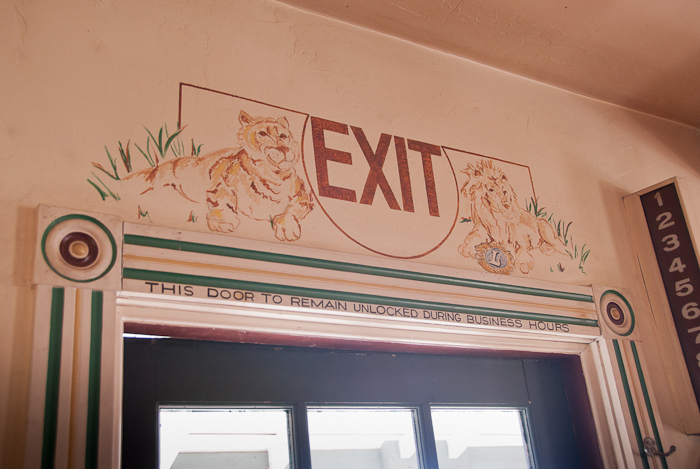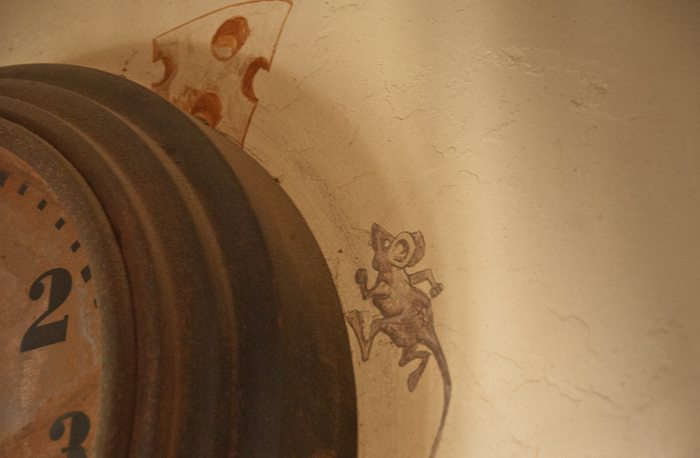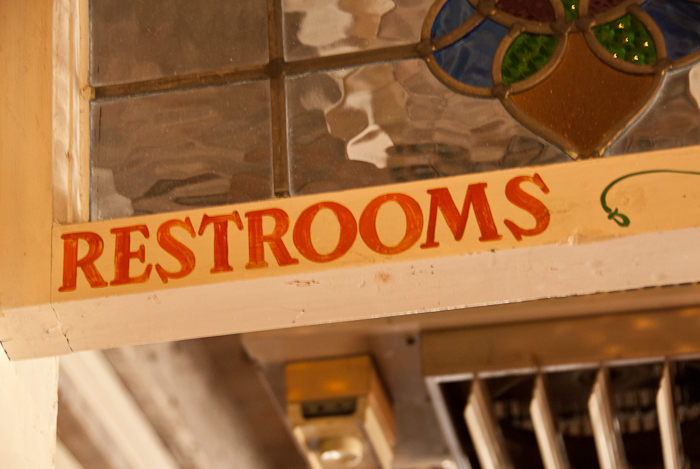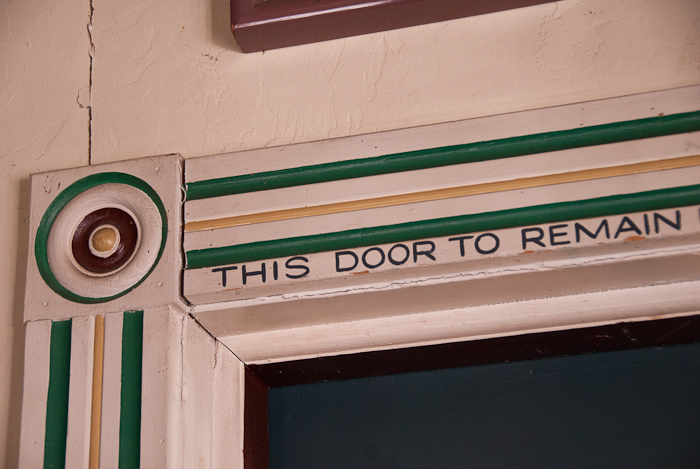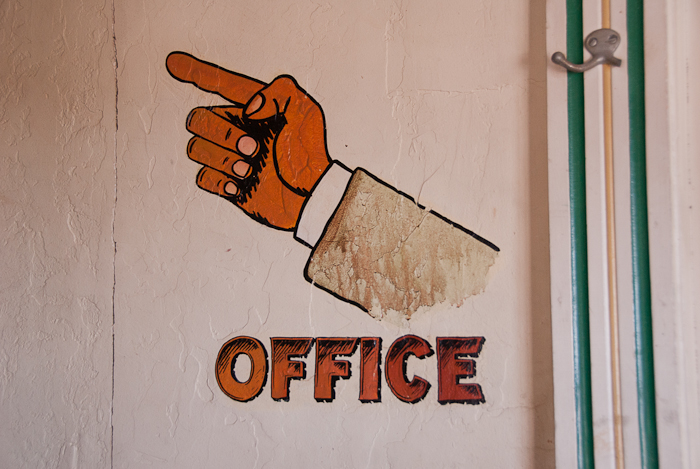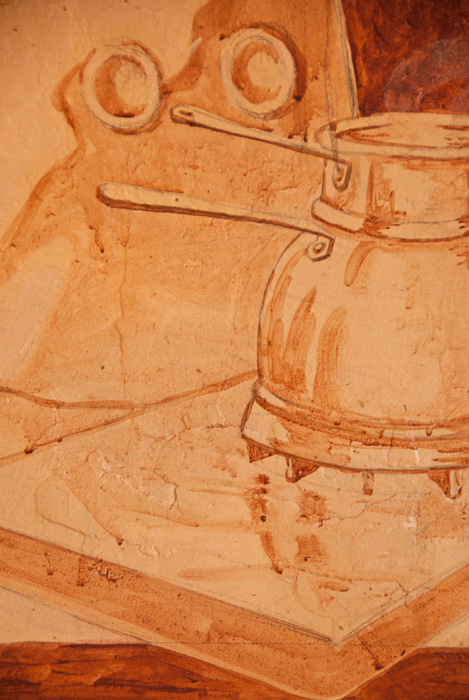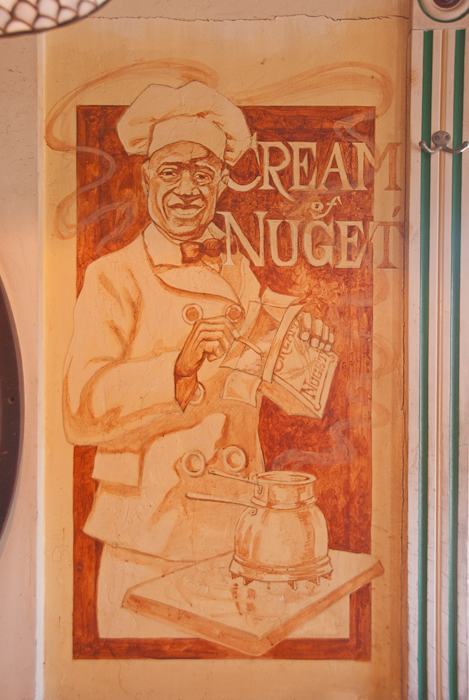
In visiting our son in Carpinteria, CA, a few miles south of Santa Barbara, we occasionally stop in Summerland, at Summerland Beach Cafe for breakfast or lunch.
We always enjoy the visit, looking out at the ocean, or checking out the walls. I have no idea who did the work, or how long it's been up, but it's been there for many years.
Look carefully at the second picture, a close up of the first. Pencil sketches were done directly on the walls, and left on the wall whether the paint covered them or not.
It's nice to see the original sketches under the finished art. Very nice work.
Very nice to see this type of work. Faded away lettering does it for me.
A real brush person here.
I'm impressed by using washes, letting the background show through and letting runs & drips add texture. And good lettering to boot.
Nice work on the textured stucco. I remember a small gold leaf job on textured stucco in Carmel, CA. It was (I think) a ribbon and a putti on the outside wall of the Italian grocery by the square, only a couple of inches tall. The texture of the wall under the leaf was just great. That was in the '70s; I wonder if it or the grocery still continue...